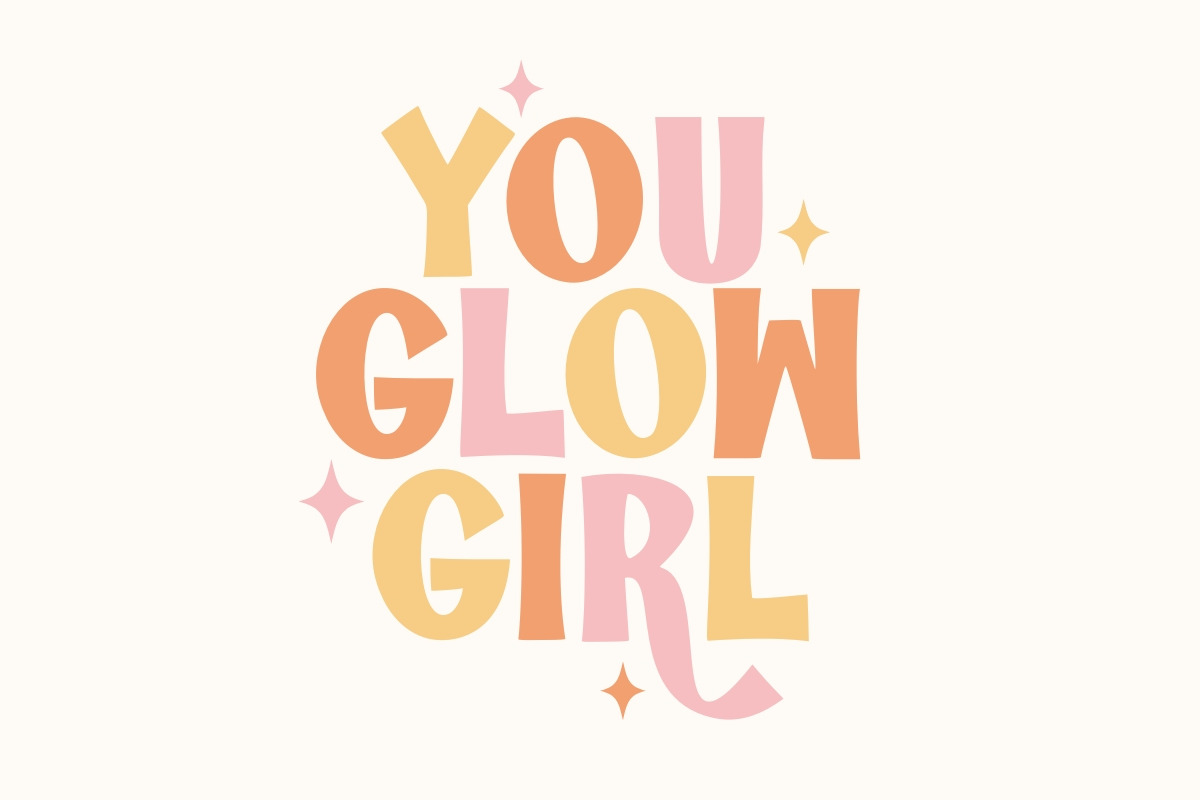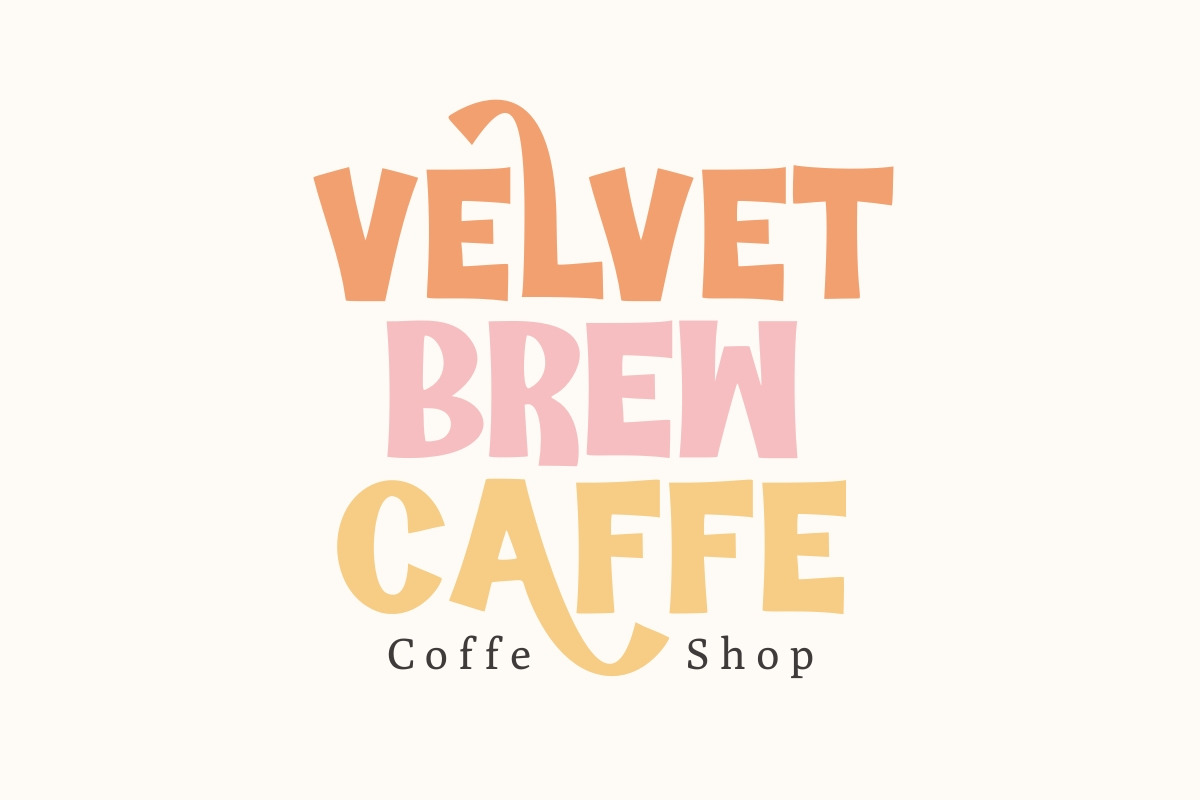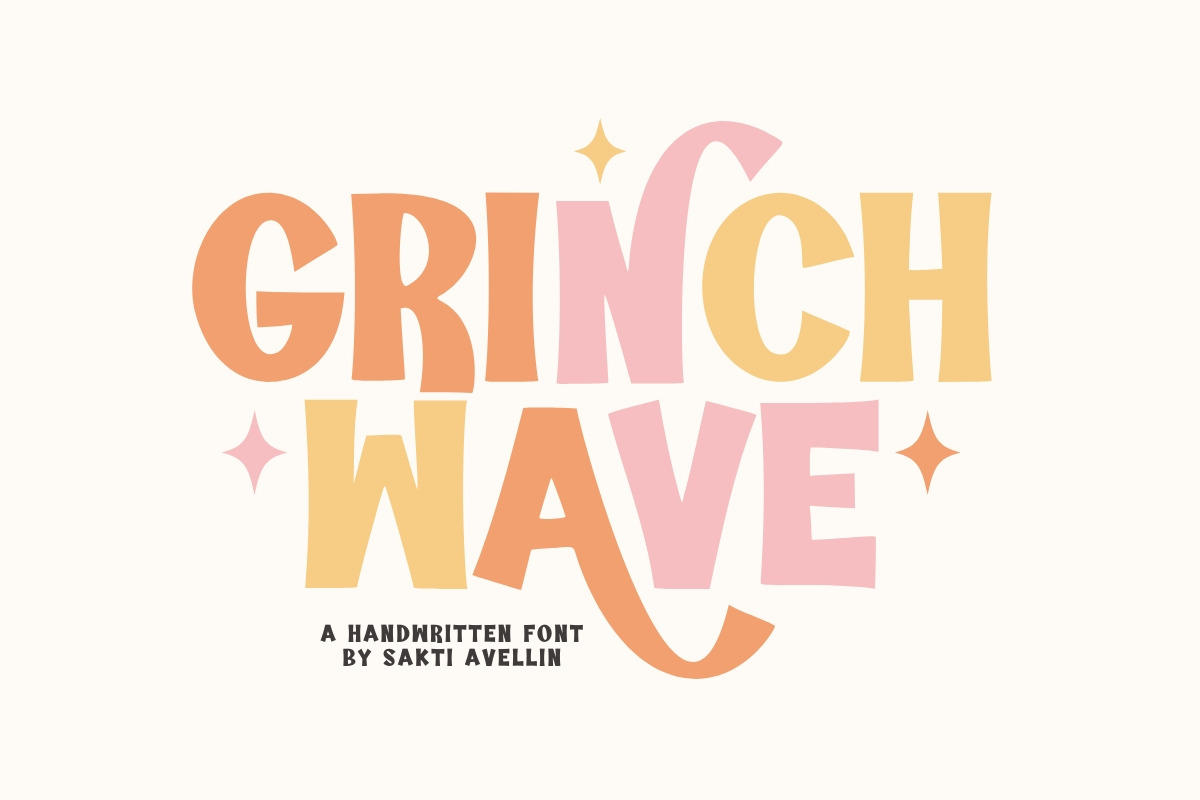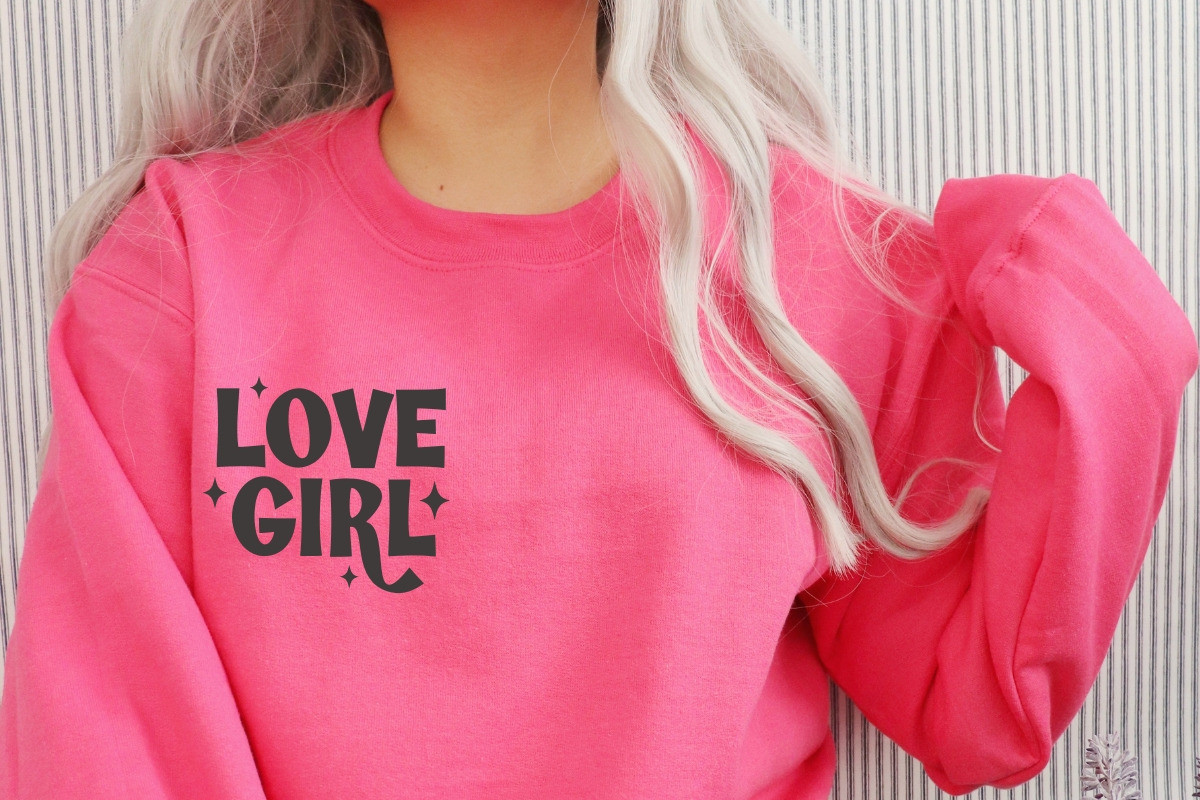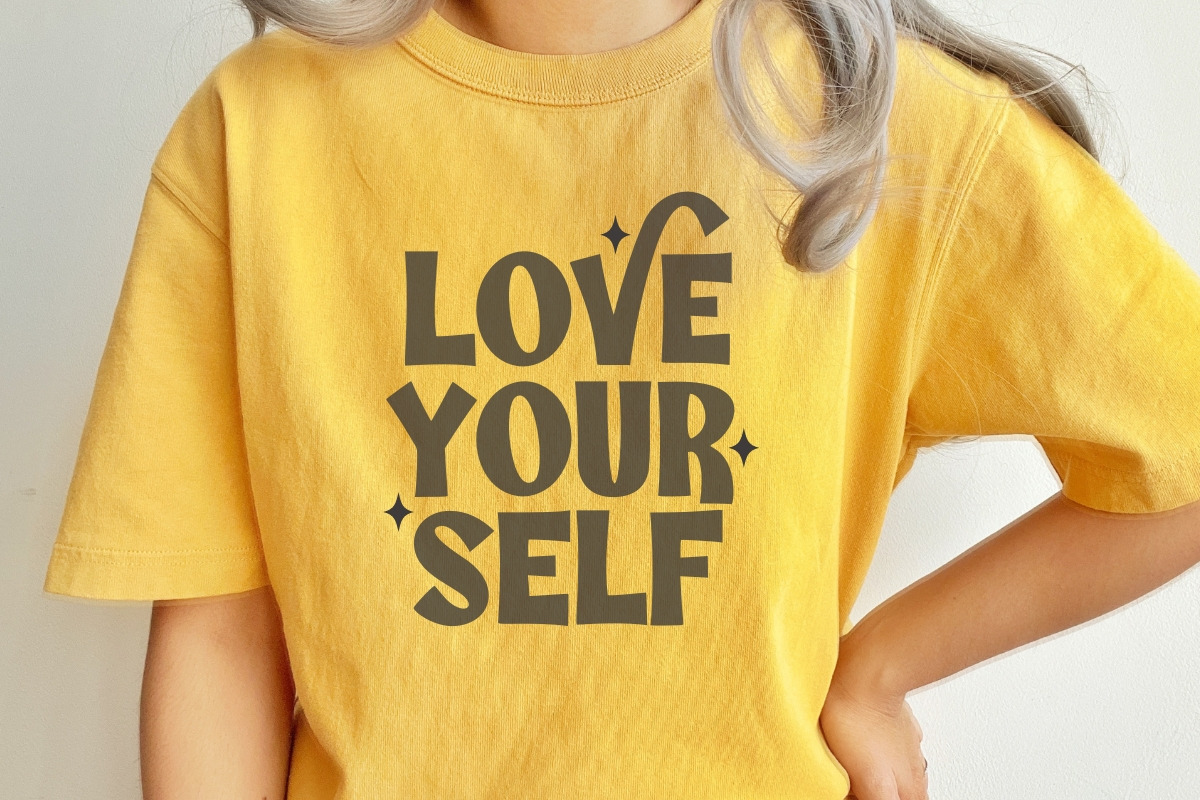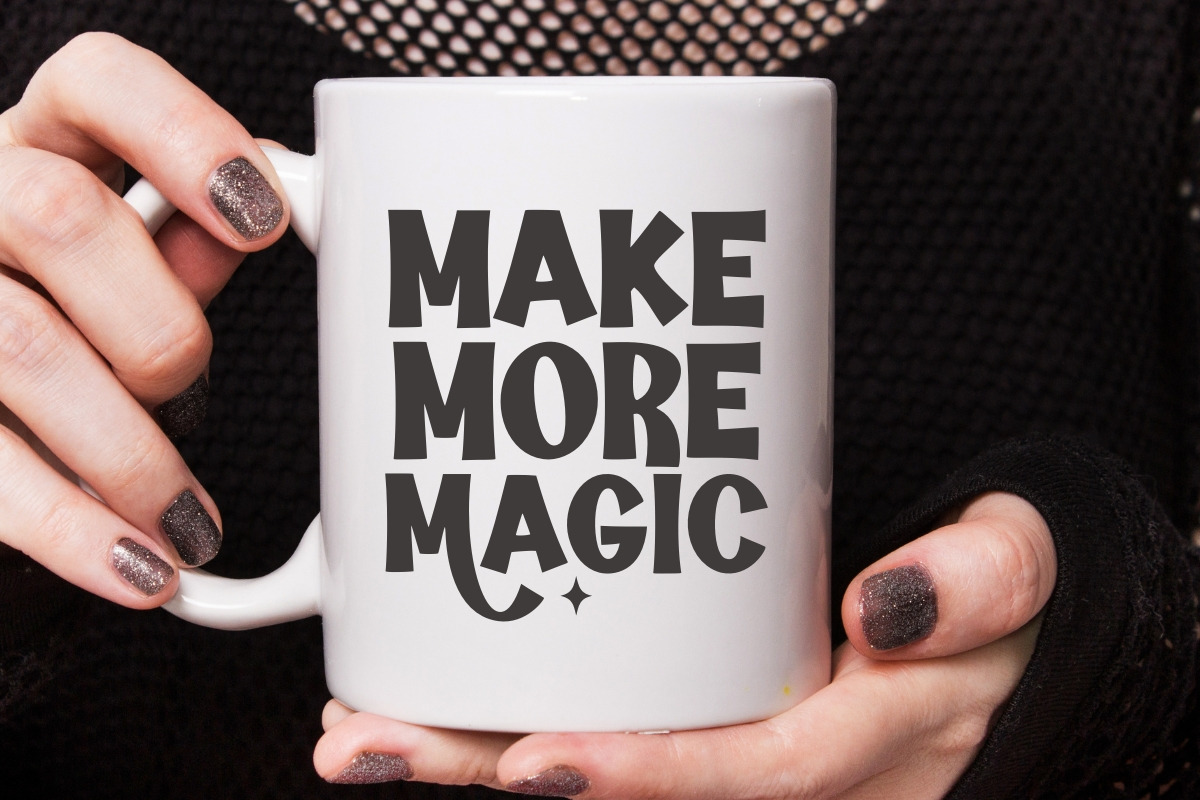
Grinch Wave - Handwritten Font
Grinch Wave is a groovy and handwritten font designed to bring a rhythmic, liquid energy to your festive and retro projects. This wavy display typeface features playful, high-impact letterforms and a nostalgic 70s vibe, making it an essential choice for holiday branding, funky Christmas posters, seasonal apparel, and eye-catching social media graphics. Its organic, bouncing silhouette ensures your headlines stand out with a unique, handcrafted charm. Whether you are designing for winter t-shirts, stickers, or whimsical greeting cards, Grinch Wave adds a vibrant and wavy twist to every creative design.